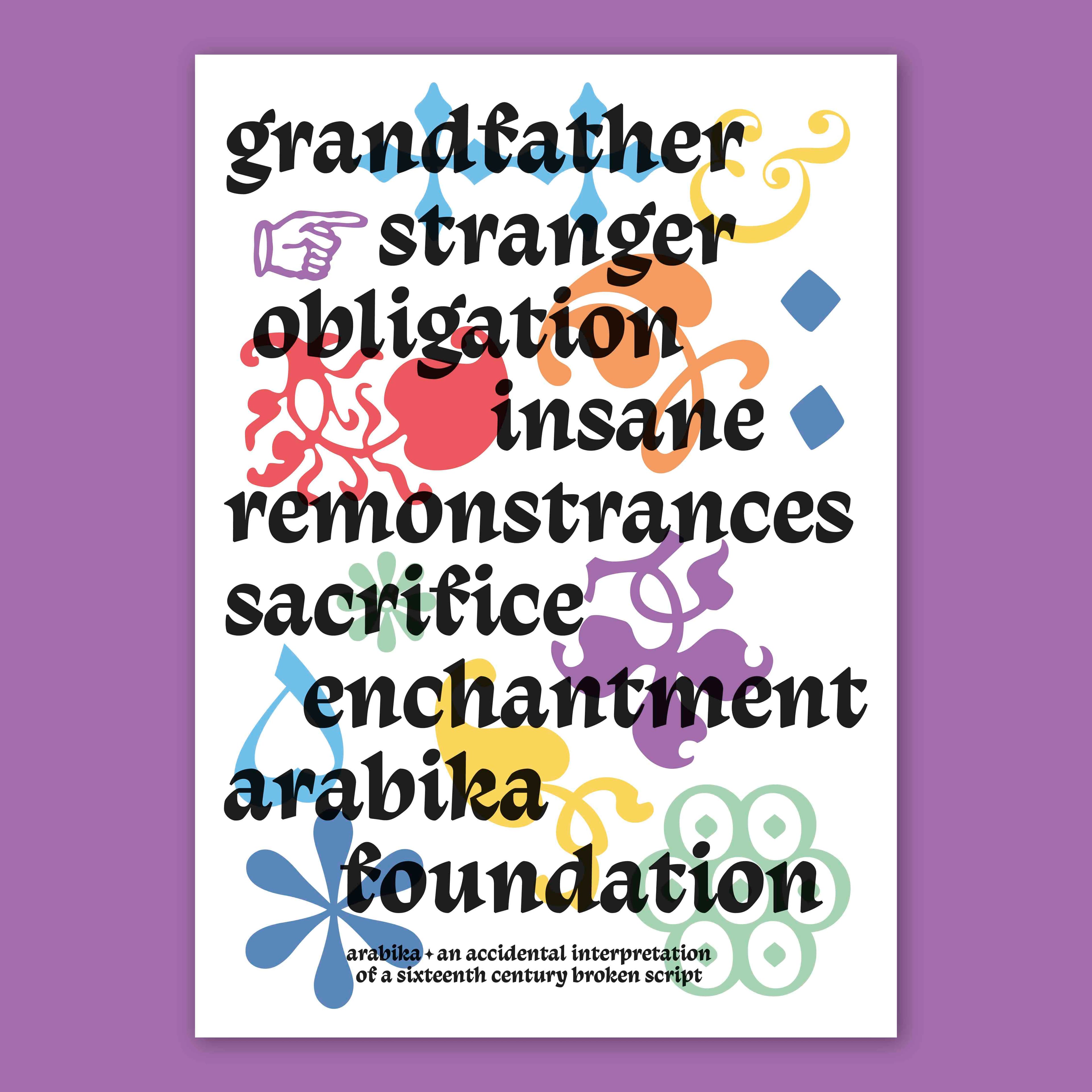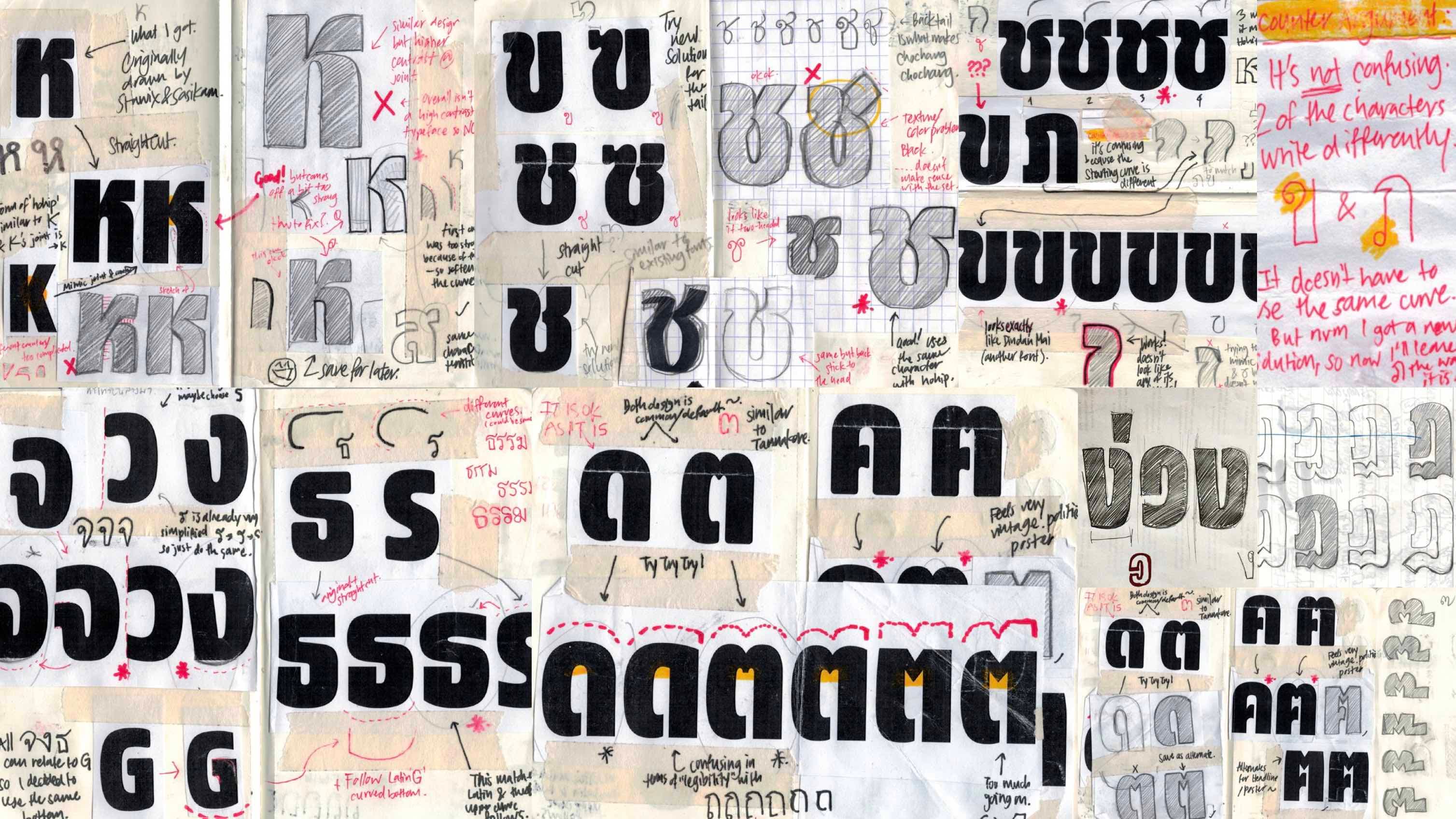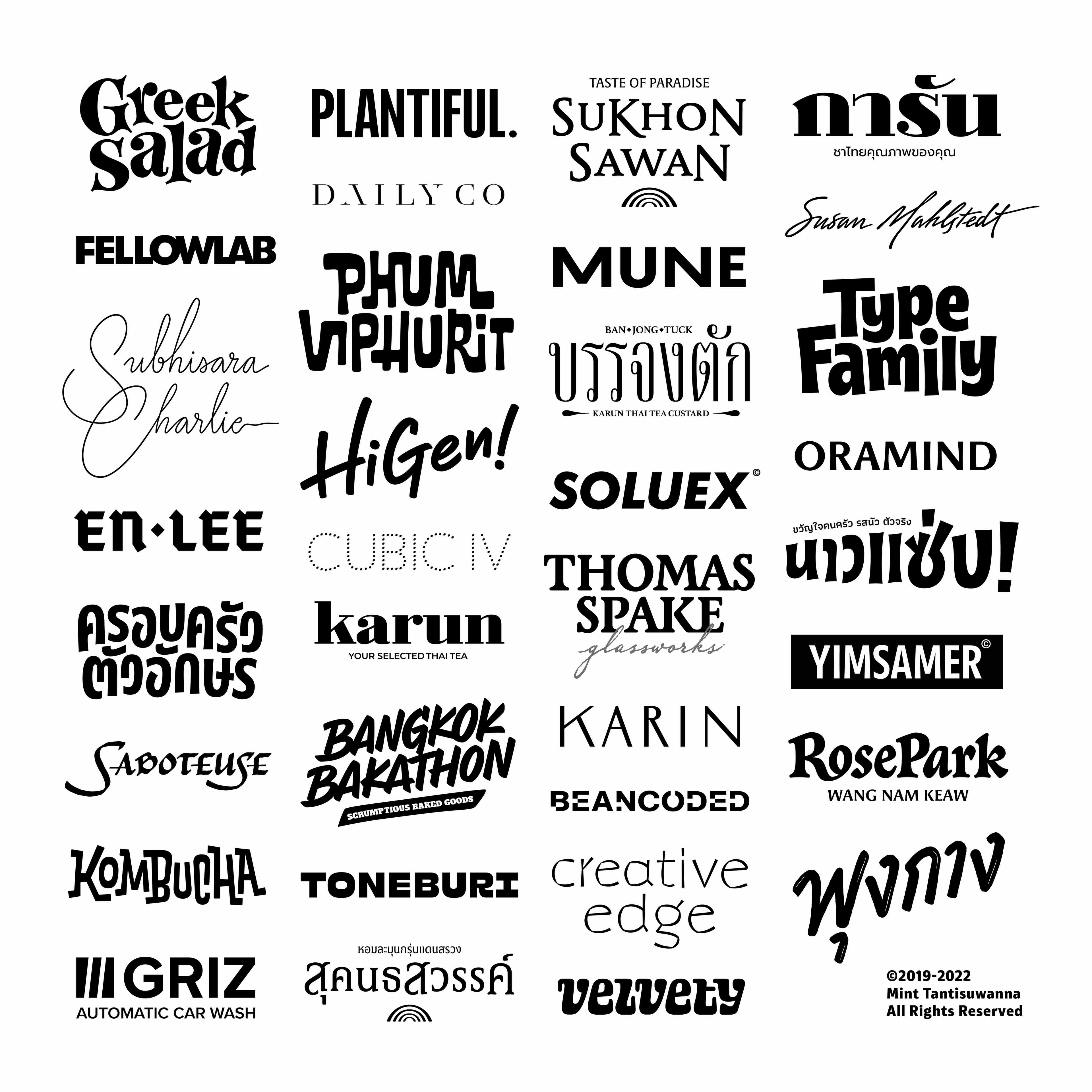
We are thrilled to announce Kornkanok 'Mint' Tantisuwanna as this year's 2023 Malee Scholar.
Kornkanok ‘Mint’ Tantisuwanna is an accomplished type designer and lettering artist based in Bangkok Thailand. She has worked for the renowned type design firm Cadson Demak, and now works independently developing typefaces and custom lettering for brands and artists across Thailand and internationally.
Mint was passionate about typeface design since before any formal introduction to the craft. Growing up, her favorite thing was to sketch and draw letters during class. It wasn’t until university and important formative experiences with influential type designers as a young adult that she discovered what would become her lifelong passion. Type design and the balancing act of precision and creativity it requires excited Mint, and she hasn’t turned her back on it since.
Mint was an inspiration to The Malee Scholarship. Her incredible talent and passion is hard to overlook, but what’s more is she doesn’t want to keep it to herself. She has taught at multiple universities teaching young designers the art of type design, and hopes to build her own type foundry one day. Type design in Thailand is not considered a typical career path, but Mint wants to break this convention and raise awareness and promote a growing generation of type designers in her home country. We don’t doubt she will make great strides in the field, and we are proud to announce her as the Malee Scholarship recipient of 2023.
What is one of your earliest memories interacting with or making letterforms before becoming a type designer?
I remembered passing papers in class with a kind of game I invented. I’d pick a random word and write it down. I’d ask a friend nearby to write the exact same word, but with one rule — write it differently. We would pass back and forth until we ran out of ideas. We’d change our handwriting every turn from super neat, to all lower case Sans Serif, to wide all-caps, to cursive, to narrow slab serif, to Curlz. I’d be fussing over things like, are there other ways to write a ‘k’? It was very enjoyable. Soon, however, most of my friends got tired of it. Thinking of it now, I wasn’t a great student in primary school but I thought about x-height long before I knew what it was. I was fascinated by type long before I knew what type design was.
“Type welcomed me into this world that gave me life, and became a space where I could feel fulfilled.”
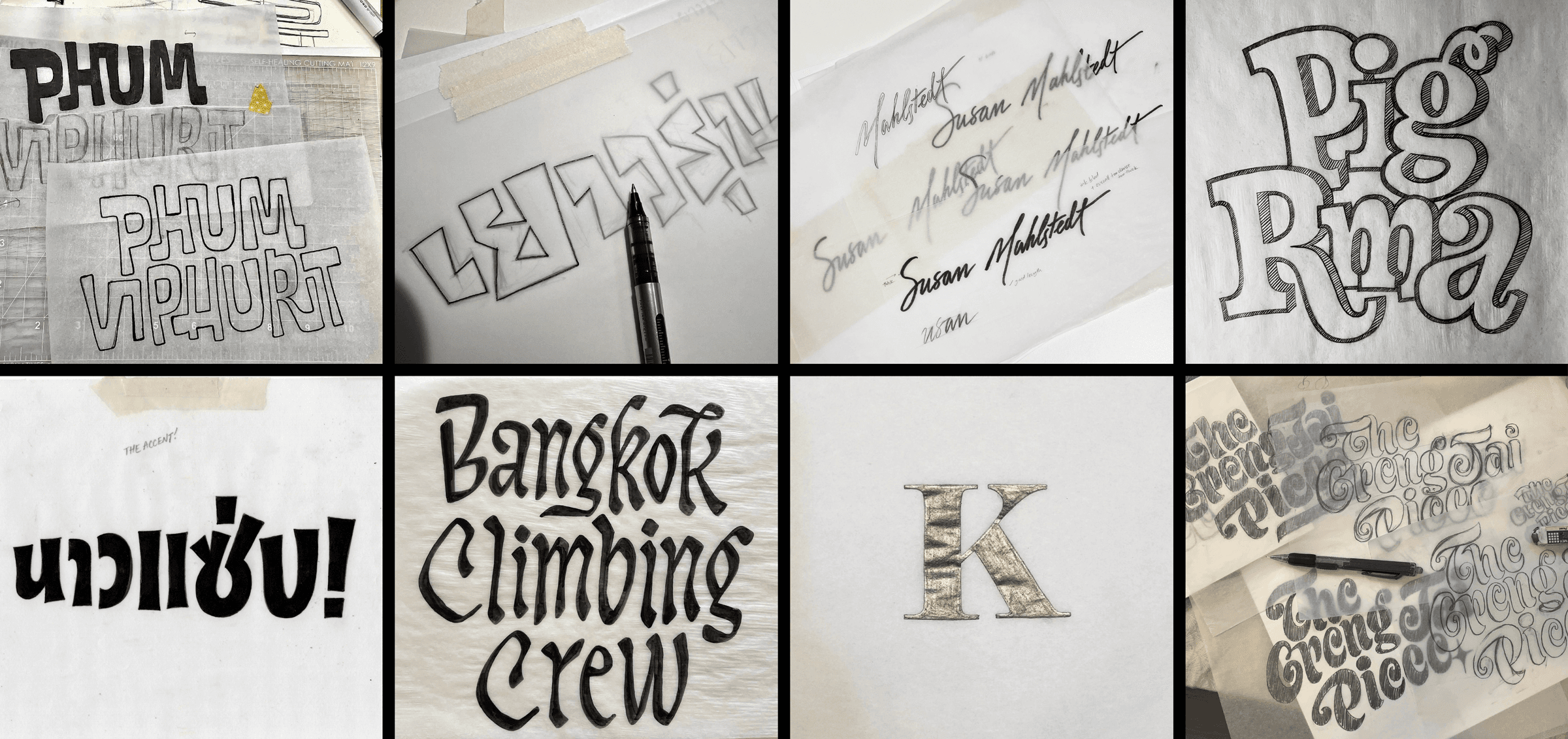
How did your interest in type evolve into a professional practice?
I chose Communication Design for college and the reason is nothing special; I was terrible at math. My path as a design student did not seem to be going that great in the beginning. Most of my design friends seemed to know what they were good at. Some were great at illustration and some just had really good taste. I started to notice how I enjoy paying attention to tedious details. I was the annoying classmate who always spotted typos. I was the person who saw that there was 1 extra spacebar. I’d question things like “Why isn’t that square and circle lined up?” My friends noticed that when I took notes, I made sure they were written down as pretty as I possibly could. I also like drawing beer logos on napkins and friends’ names on receipts. I never thought of it as a career. Drawing letters just felt natural.
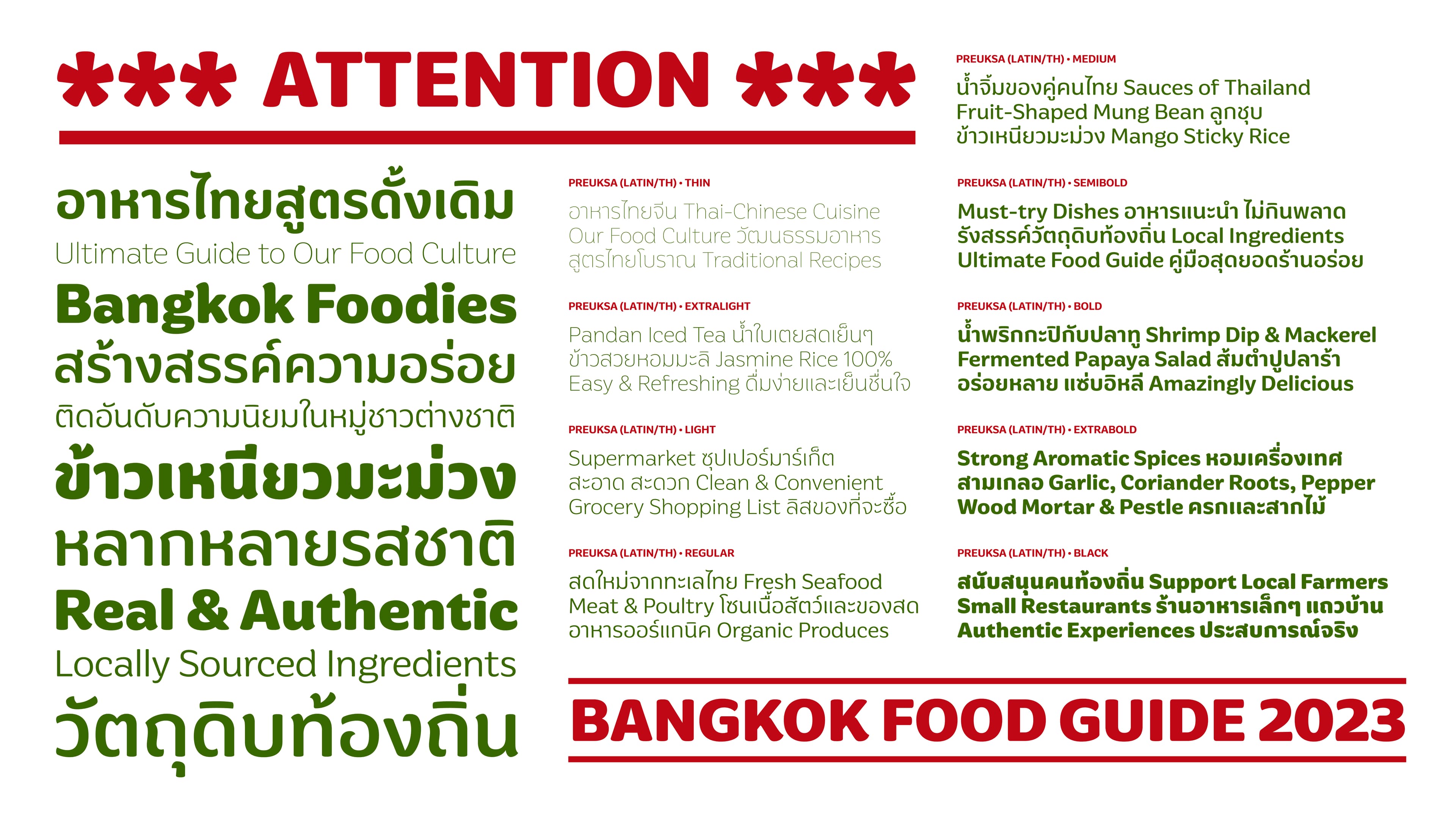
“Once I learned what type design was, I felt that I discovered a career that has to do with all my personality and likings combined.”
I heard of Cadson Demak from my design friends about how exceptional they are in their attention to detail. I wrote an email hoping to learn from people who would understand my frustration with things that don’t align. I was extremely lucky to earn a spot as an intern when I barely knew typefaces beyond Helvetica. I remembered the very first day of my internship. Anuthin Wongsunkakon, the founder, was lecturing me first thing in the morning on how we don’t just draw type from imagination. It all starts with writing; tools are what create the design. The very first time I drew type digitally, Smich Smanloh, type director of Cadson Demak told me, “Designing negative space is as important as designing positive space.” Once I learned what type design was, I felt that I discovered a career that has to do with all my personality and likings combined.
I started sketching more, learning type history, and reading process articles by other type designers. After a few years, I had the opportunity to design and develop typefaces for both local and international clients. Even though I do not work full-time at Cadson Demak anymore, my type design journey wouldn’t begin without the guidance and mentorship of their team.
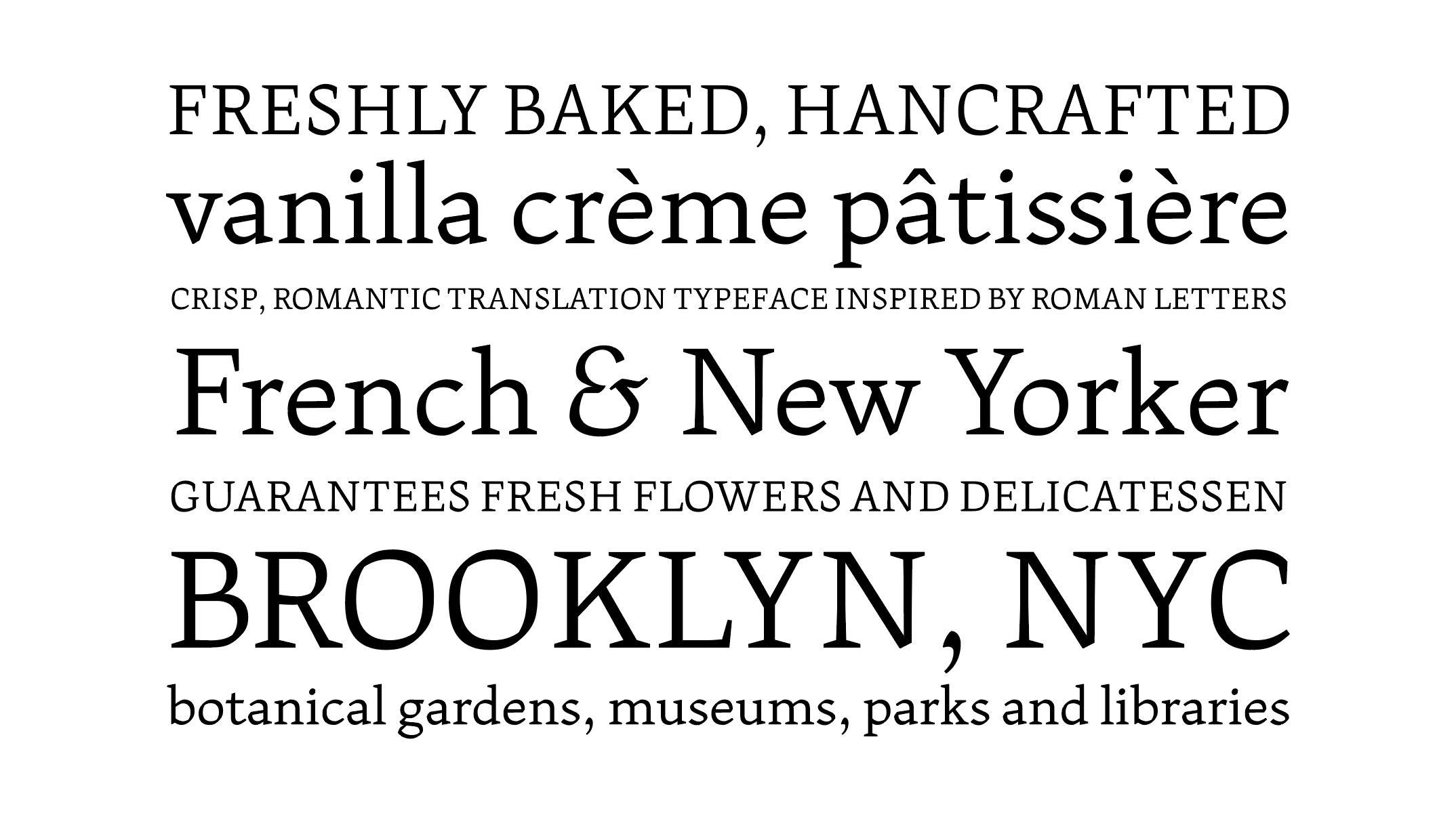
How does your background and community shape who you are as an individual and designer today?
Growing up in a Thai, family-run tire shop, art and design is the furthest thing I could be doing. I have always felt the pressure to prove myself to my family that I can manage to do what I love and make a living, like a typical Asian kid who isn’t a doctor or an engineer. Ever since I realized type design was probably my thing, I knew this isn’t going to be an easy journey.
In 2019, I attended the Type@Cooper Condensed Program in New York City. Hannes Famira, Just van Rossum, Cara Di Edwardo, and Sasha Tochilovsky were amazing mentors. My classmates also came from various creative backgrounds. They might not know but the small community that happened in those few weeks played a big part in shaping me as the designer I am today. I was inspired to sketch very neatly and precisely from a painter. I started to be more interested in dynamic compositions and how creative tools create unconventional textures from a calligrapher. I also got myself a brother/type buddy which until today has always been my second pair of eyes and a good source of constructive criticism.
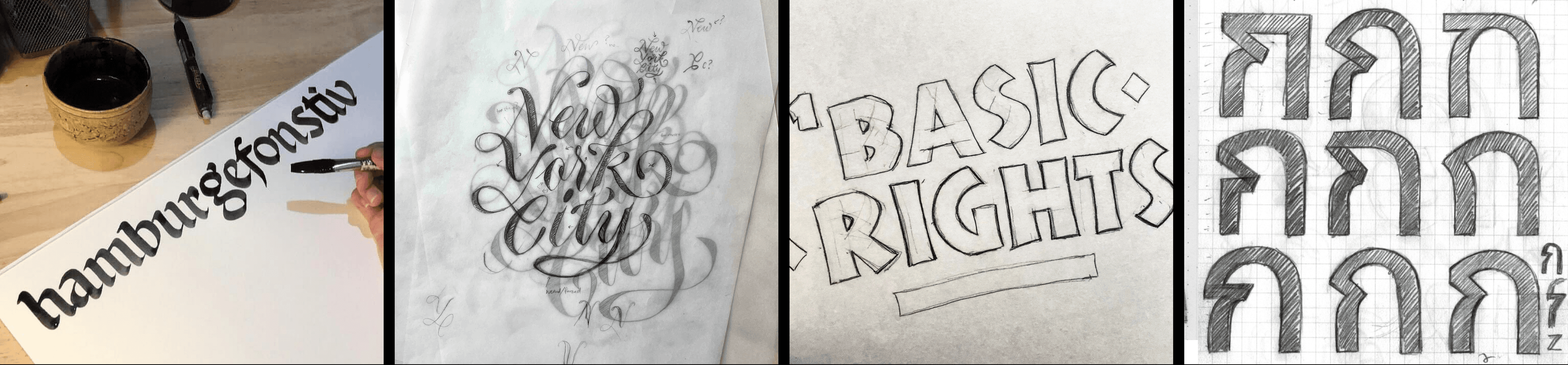
Another factor that shaped me into who I am today is my friends. I have an extremely opinionated group of friends. We have something to say about every restaurant’s menu layout. From that is such a smart choice of typeface to that leading could have been tighter. We understand the work might have gone through a tight timeline, unclear brief, limited production cost, or other uncontrollable factors that we would never know. Not being full of hate but being constantly observant and analytical is an important key to learning. That way we are always training our eyes and exercising our creative problem- solving skills. I believe we can always learn a thing or two from bits and pieces around us.
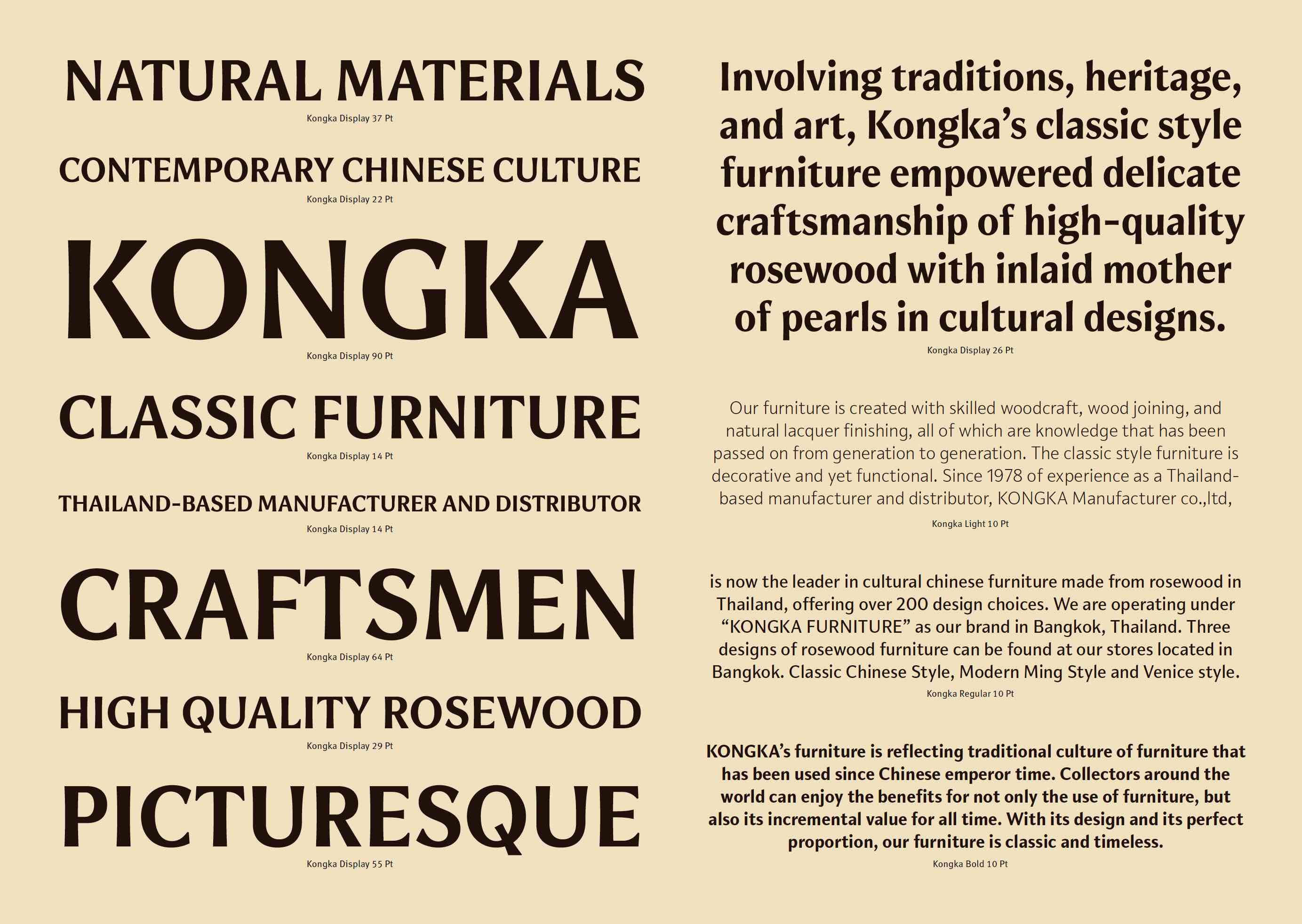
What’s next for you?
Like a dream come true, I'm extremely grateful and happy to share that I have been accepted to the Type and Media master program at the Royal Academy of Art (KABK) this coming August. With the support of the Malee Scholarship and my fellow designers who have always taught me and helped me, I believe I am on my way to building a stronger foundation and moving forward as a type designer with a voice for ethnic minorities like myself. With my determination and dedication — I also want to not only become a person who does type but the one who keeps the profession of drawing letters alive.